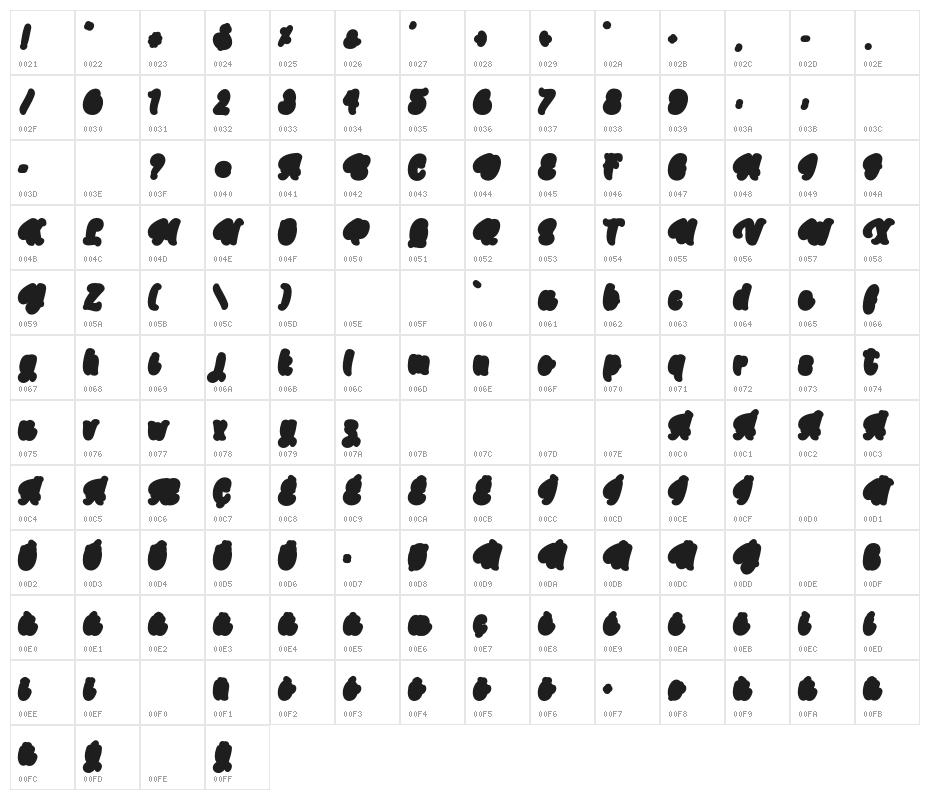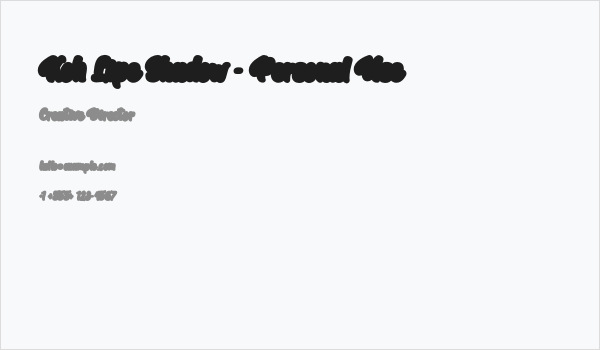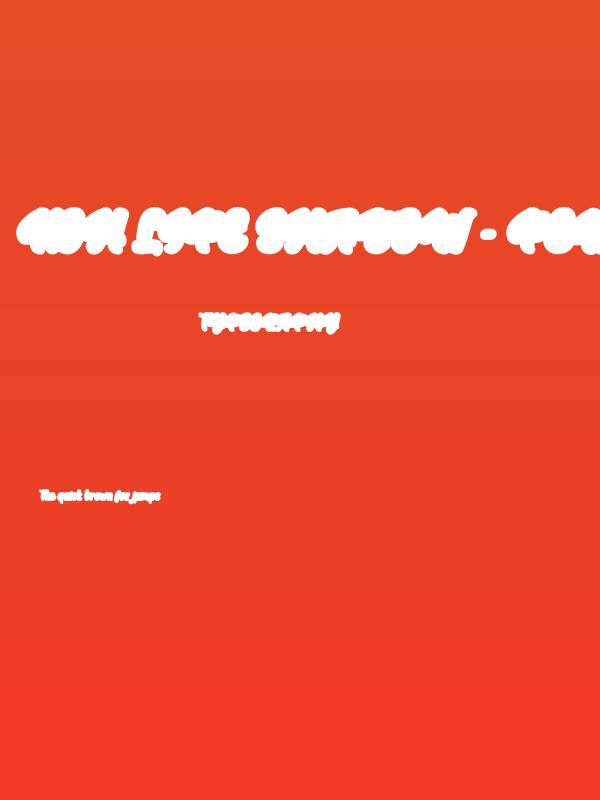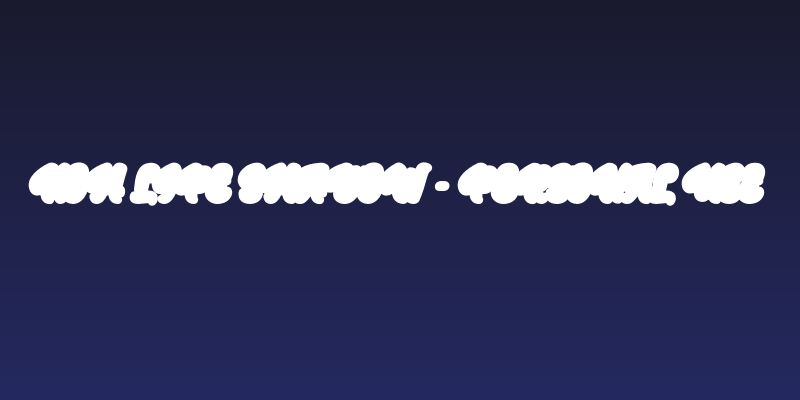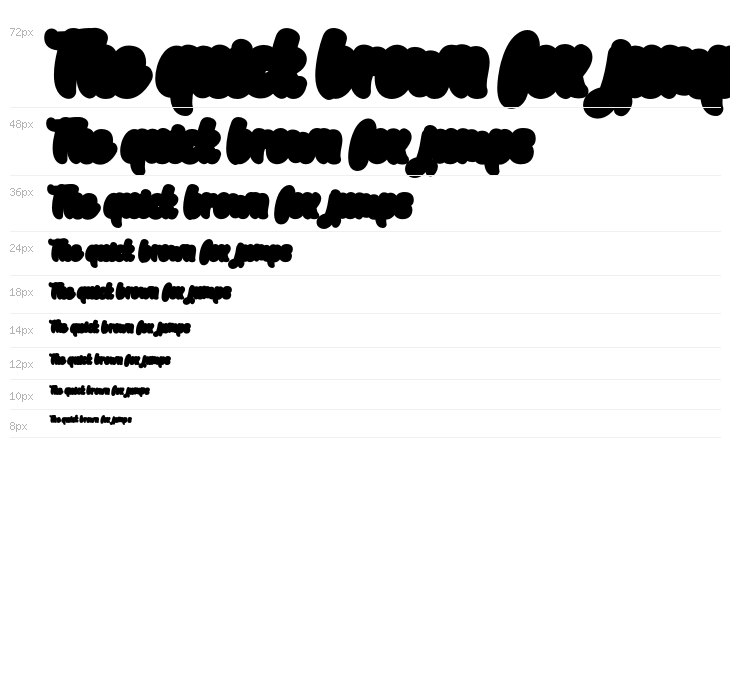
Koh Lipe Shadow - Personal Use Font
Koh Lipe Shadow - Personal Use Description
This font features a bold, shadowed style with a playful and artistic flair. The characters are heavily rounded and filled, creating a sense of depth and dimension. Each letter appears to be hand-drawn, with a consistent thickness throughout, giving it a cohesive look. The shadow effect adds a layer of complexity, making the font stand out in any design. The overall appearance is both whimsical and impactful, suitable for creative projects that require a strong visual presence.
| Proposed Projects | Ideal for posters, children's book covers, playful branding, and artistic designs. |